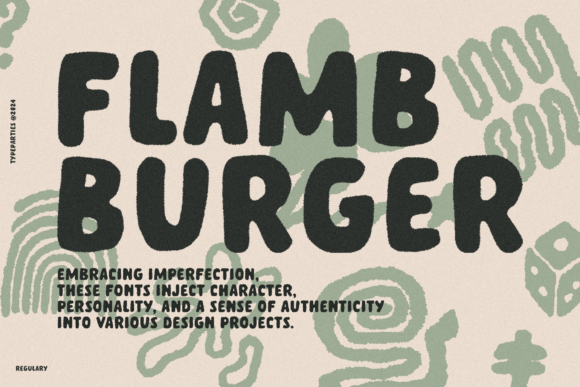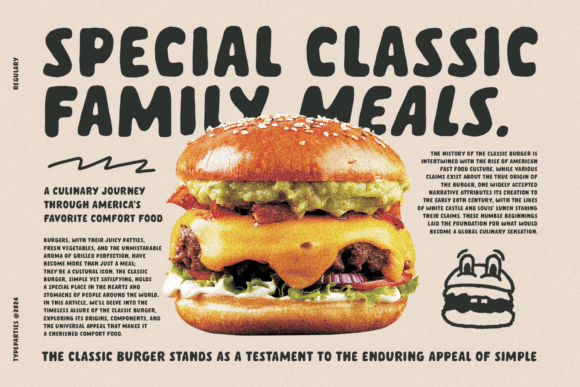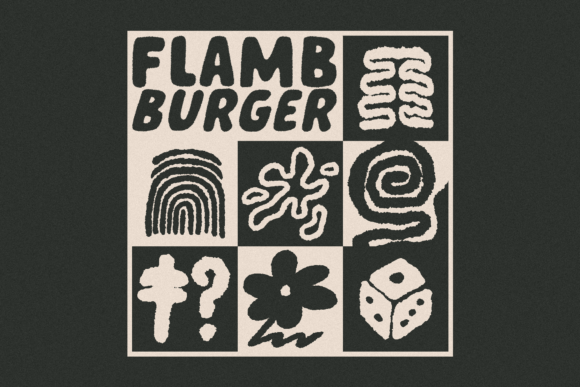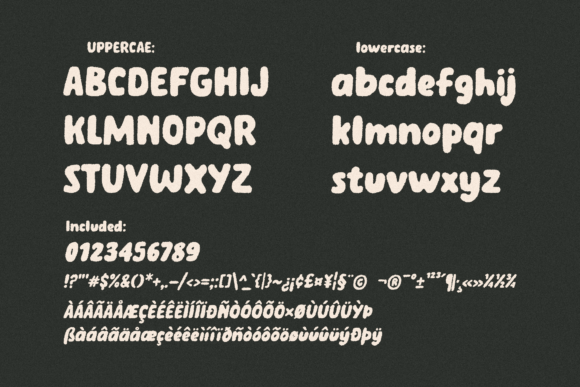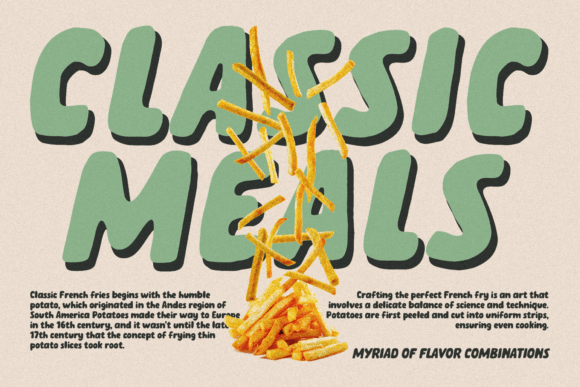
Introduction to Flamb Burger Font
Embracing imperfection, these fonts inject character, personality, and a sense of authenticity into various design projects.
Flamb Burger plays a crucial role in design, communicating not just words but also the essence of a message While clean and organized fonts dominate the digital landscape, thereโs a growing trend that embraces imperfection โ messy handwriting fonts.
Key Features of Flamb Burger Font
Why Choose Flamb Burger Font?